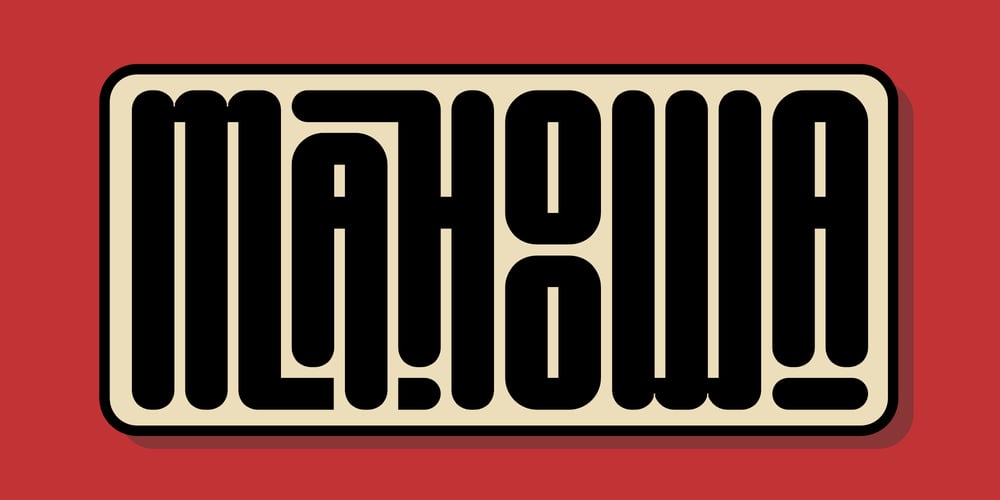
Mahoowa Font Family was designed by Dicky Safaat Fuadi and published by Your type. Mahoowa contains 2 styles and family package options. Mahoowa is a condensed rounded font featuring numerous interlock ligatures. This font offers two styles: regular and slant. In addition to its extensive interlock ligatures, Mahoowa also includes alternate character options.This versatile font is perfect for a wide range of applications such as posters, book or magazine covers, logotypes, labels, t-shirt designs, and much moreUse this display typeface to add a special touch to any design idea you can think of!